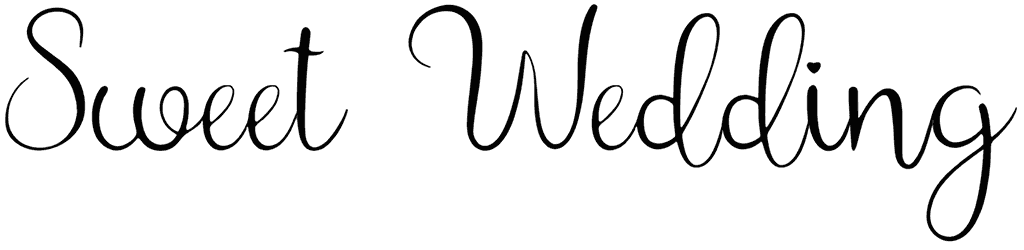
Sweet Wedding Font
If you really want to establish a sense of dynamic, vitality, personalization, and dreaminess in your graphic content, then a magical script font such as Sweet Wedding really deserves to be on your radar. Due to its curs…
If you really want to establish a sense of dynamic, vitality, personalization, and dreaminess in your graphic content, then a magical script font such as Sweet Wedding really deserves to be on your radar.
Due to its cursive style and elegant form, it can be insanely matched with a considerable number of editorial projects like social media posts, greeting cards, wedding invitations, branding, or business cards. Check out the RB wedding font collection for updates.